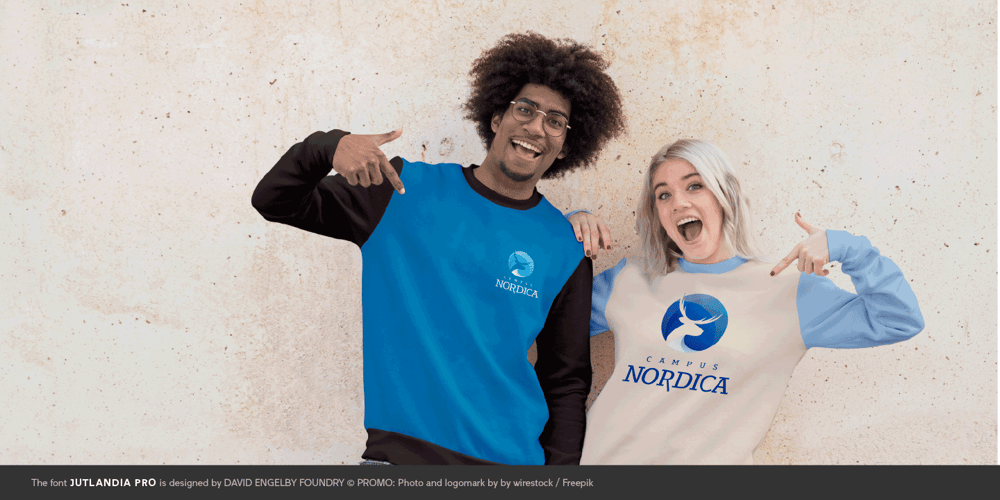
Jutlandia Pro Font Family was designed by David Engelby and published by David Engelby Foundry. Jutlandia Pro contains 4 styles and family package options. Jutlandia Pro is a redesign of Jutlandia Slab.About the Jutlandia font family: made for straightforward and functional typographic design. Its design is rooted in clarity and legibility which is the slab serif tradition. The unpretentious, yet sturdy and functional visual expression of the regular form, and the subtle bold and italic forms is an homage to Jutland – the Cimbrian Peninsula of Denmark and my birthplace.It’s suitable for package design, logotype, poster design, editorial design and anything you can dream of!Great for tons of text copy as well.Enjoy!